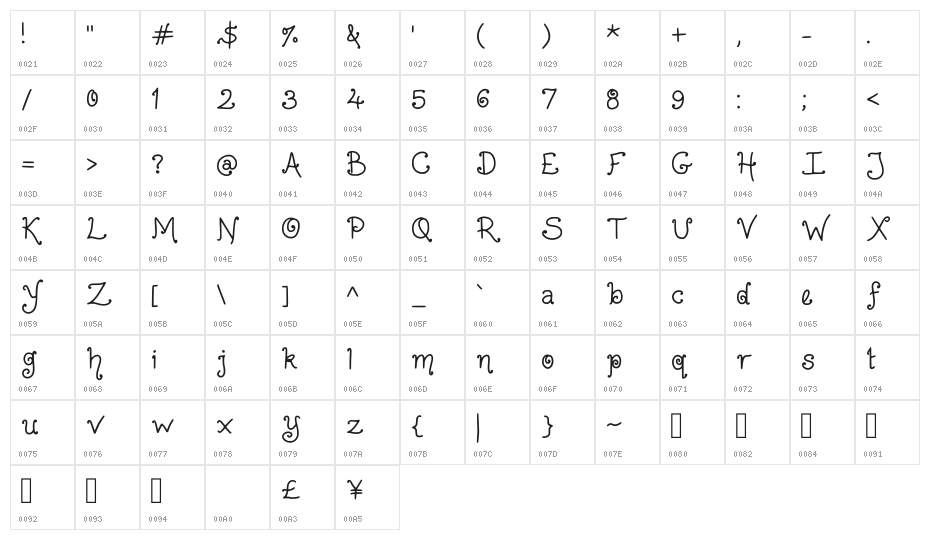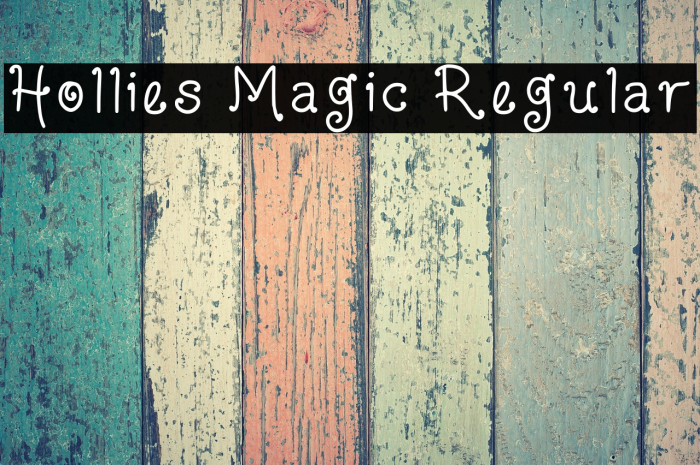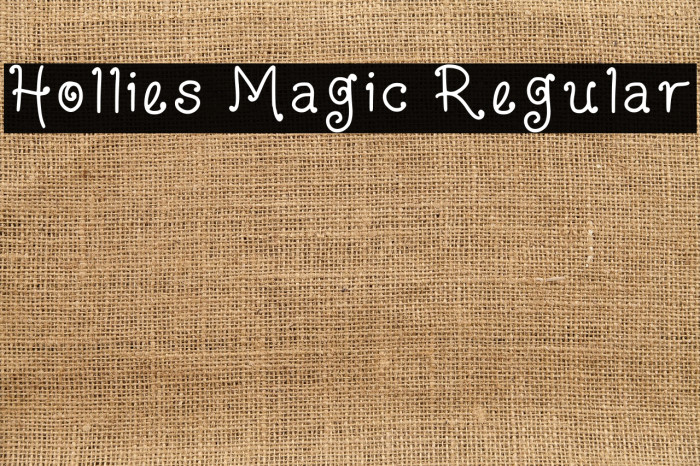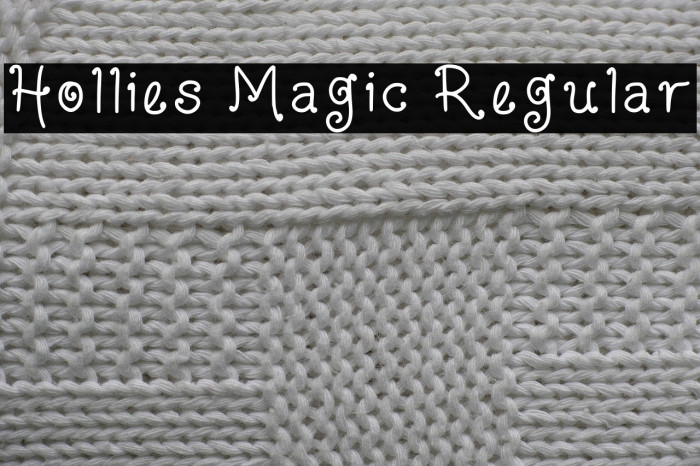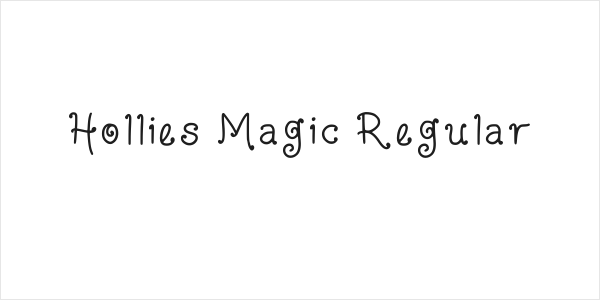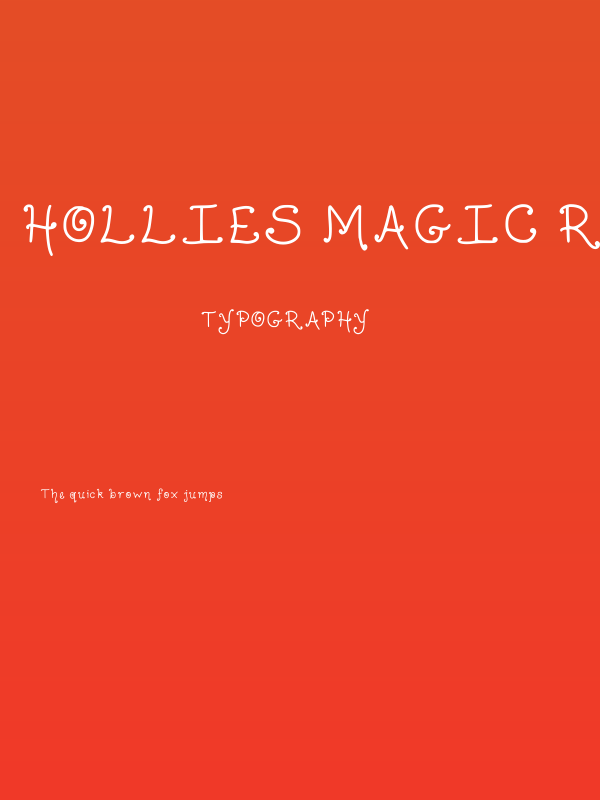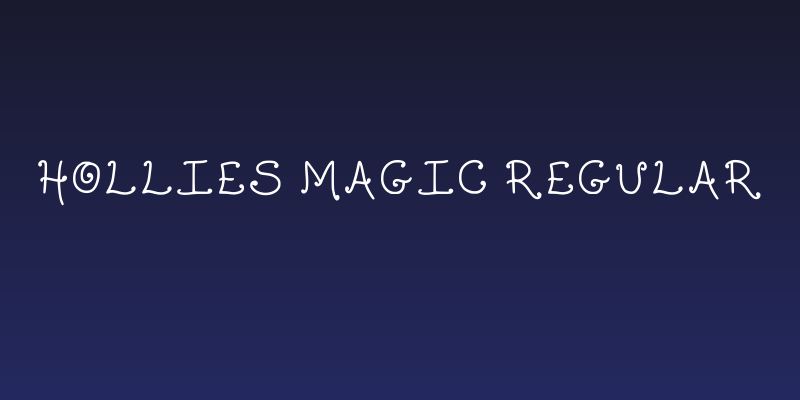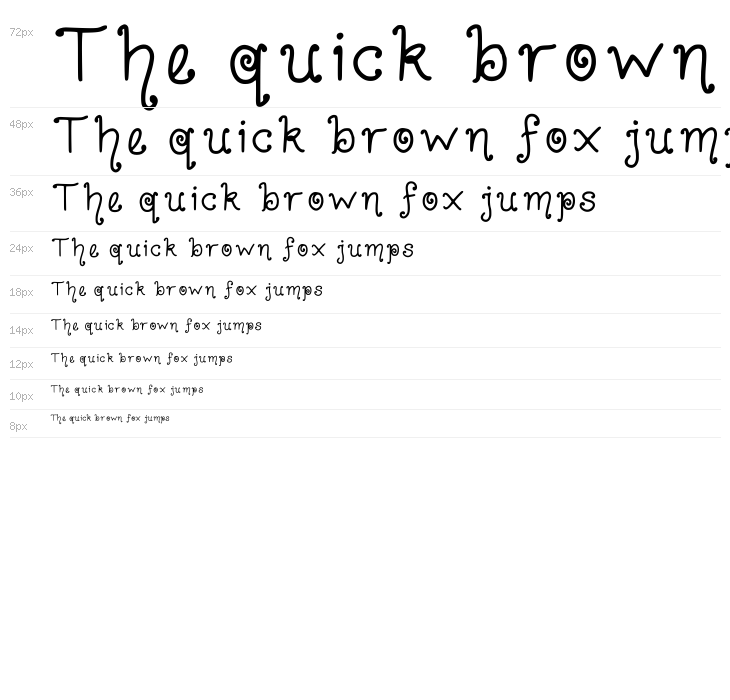
Hollies Magic Regular Font
Hollies Magic Regular Description
This font features a whimsical and playful design with curly and rounded edges that give it a friendly and approachable appearance. The characters are slightly irregular, adding a hand-drawn feel to the overall style. The uppercase letters maintain a consistent height, while the lowercase letters vary slightly, enhancing the casual and informal look. The numerals and special characters are designed to match the playful aesthetic, making them suitable for creative and fun projects. The font's unique style is ideal for adding a touch of personality and charm to any design.
| Proposed Projects | Ideal for children's books, greeting cards, playful branding, and creative posters. |